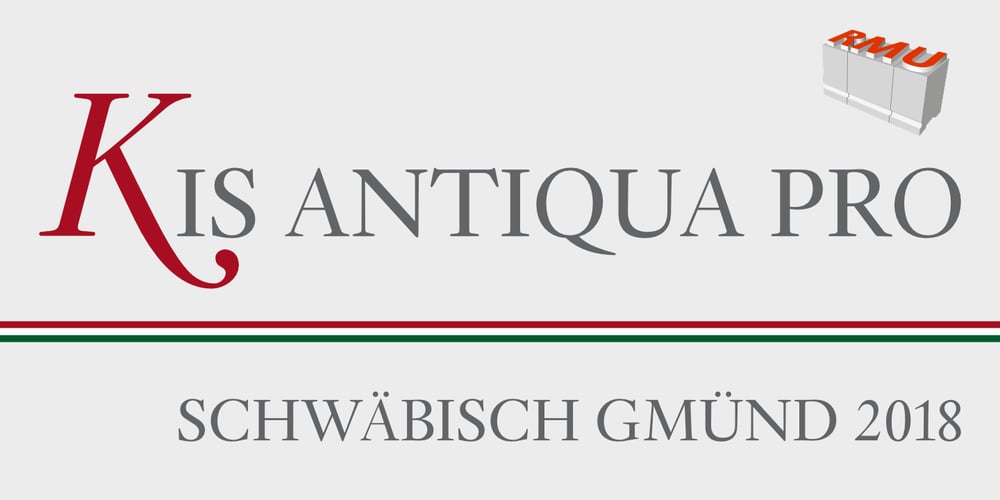
Kis Antiqua Pro Font Family was designed by Ralph M. Unger and published by RMU. Kis Antiqua Pro contains 2 styles and family package options. These Typoart fonts were redesigned and revived for modern use. The italic style got an entire set of swash caps, and both styles contain superior and inferior numerals as well as the historical long s.